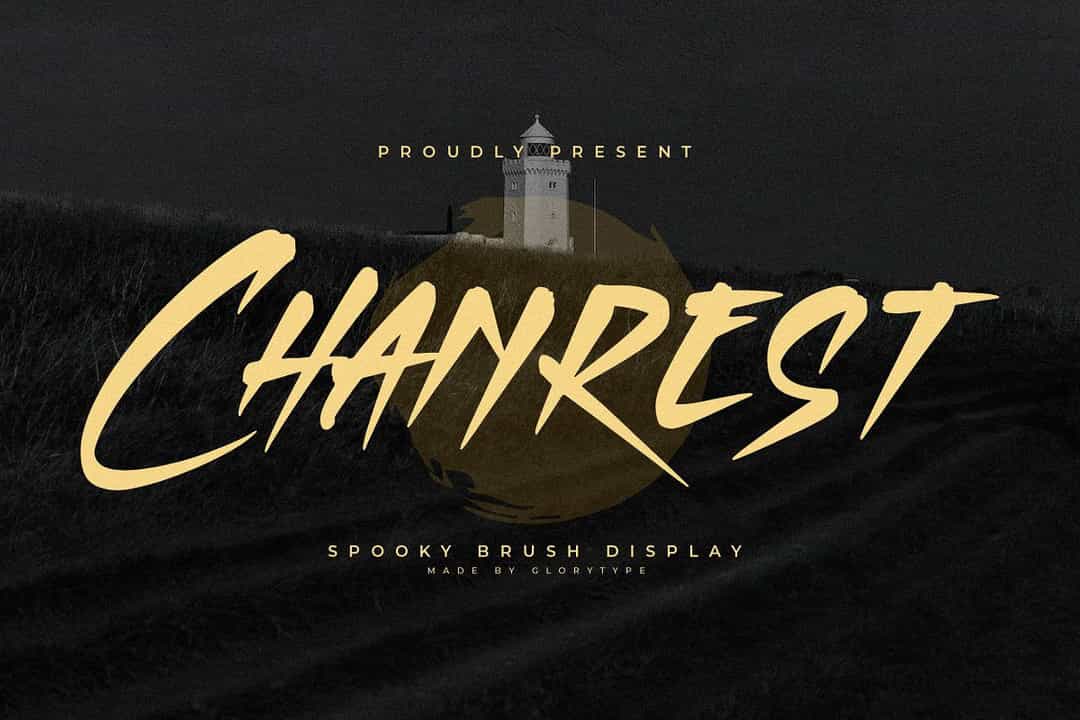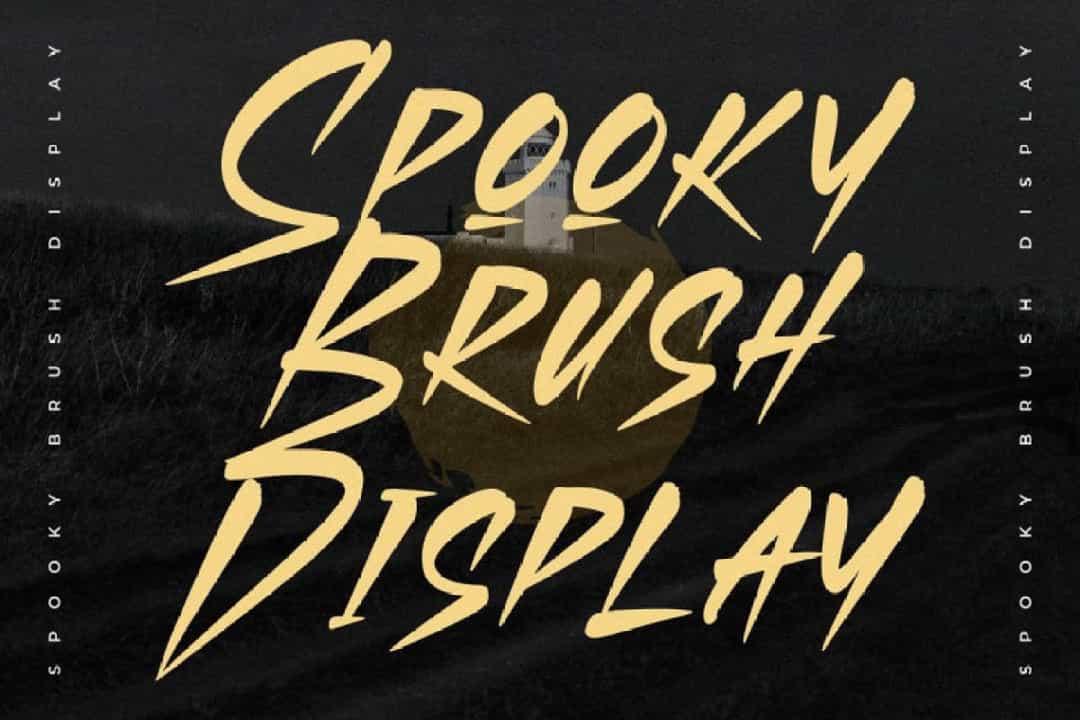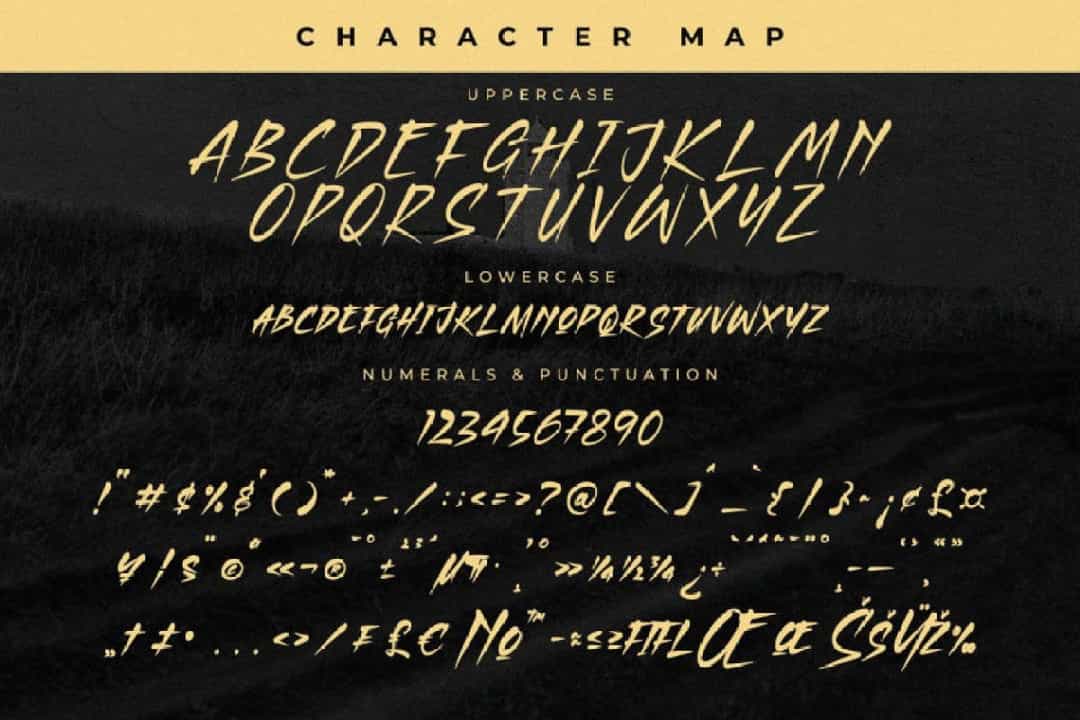
Glorytype Studio’s Chanrest Spicy Brush Display Font is ideal for logos, branding and homeware designs as well as packaging of products, mugs, posters, quotes bags, shopping bags t-shirts book covers name cards greeting cards invitation cards labels watermark photography special events special events photography and any other projects requiring stunning script flair.